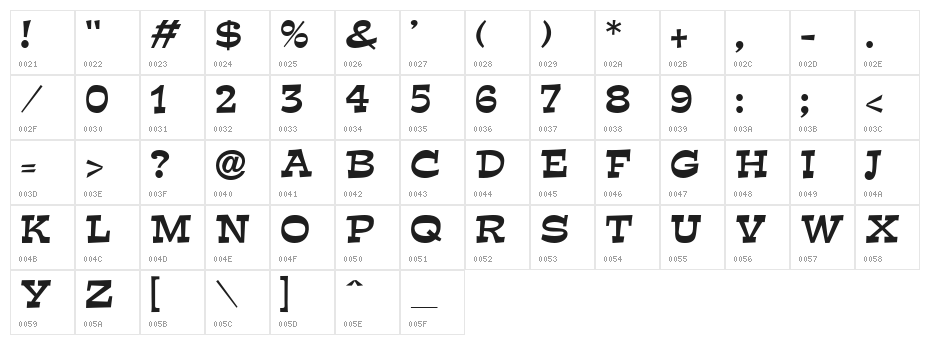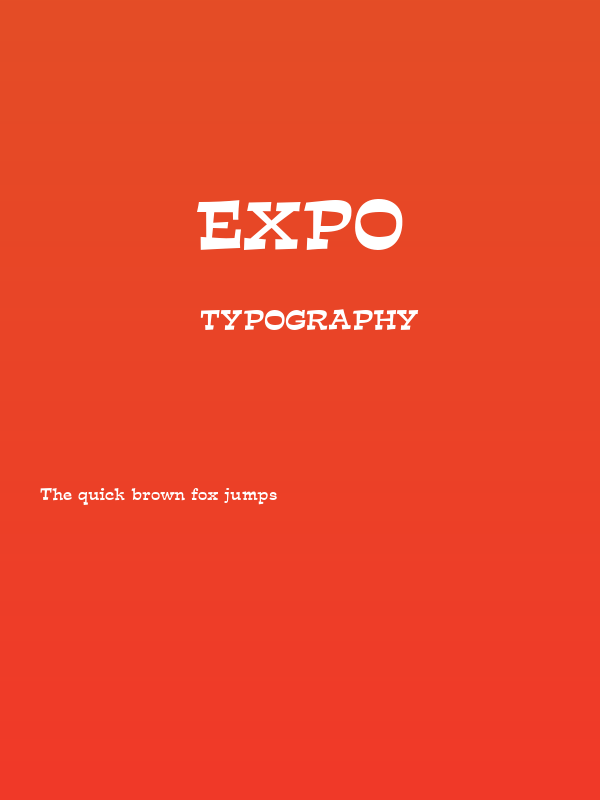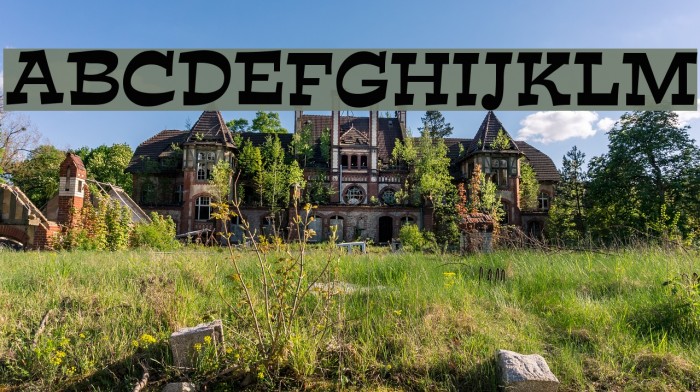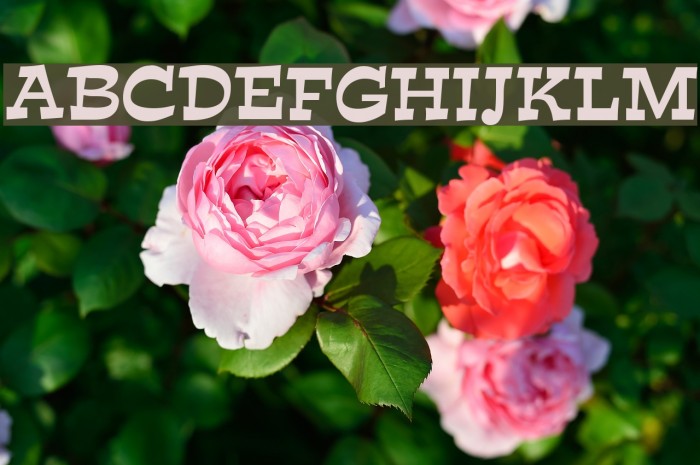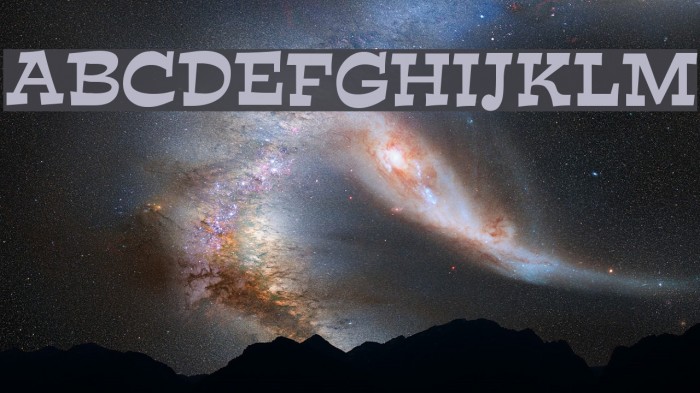
Expo Font
This font features a bold and playful design with a distinctive slab serif style. The characters are robust and slightly condensed, giving a strong presence on the page. The uppercase letters are particularly striking, with a slight tilt that adds a dynamic feel. The lowercase letters maintain a consistent weight, providing a harmonious balance. The numerals are bold and clear, making them highly legible. Special characters are designed with the same playful yet sturdy aesthetic, ensuring consistency across all glyphs. This font's unique style makes it suitable for eye-catching designs.
| Proposed Projects | Ideal for posters, headlines, branding, and any design requiring a strong, playful impact. |